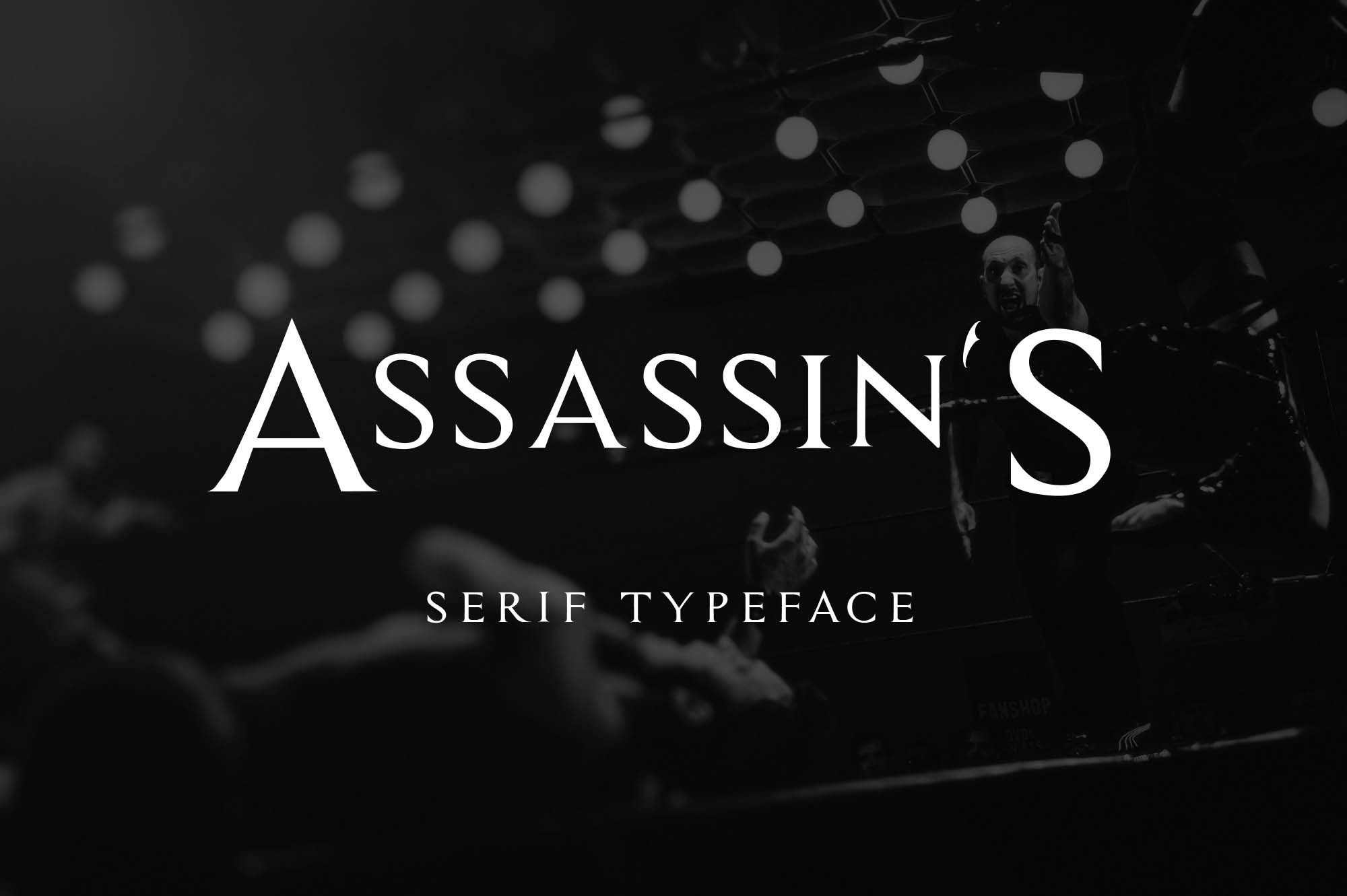
Assassin Font
Assassin Serif Font is a beautiful nostalgic upper and lower case typography that looks amazing in upper and lower case settings as Display, Logo and body text. This font is perfect for adding a personal charm to your logos, branding, social media, advertisements, invitations, product designs, product packaging, etc. Have fun using it!